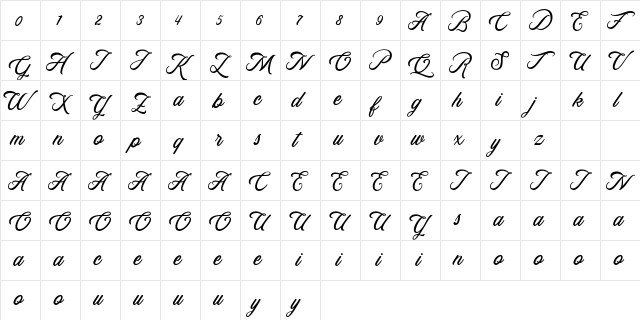
Rosewell Script Demo Regular
| Foundry | Ardyanatypes Studio 2019 |
| Designer | Ardyanatypes |
Design Context for Rosewell Script Demo Typeface
Rosewell Script Demo brings a calligraphic fluidity to the page — its connecting strokes and expressive curves give it an unmistakably human quality.